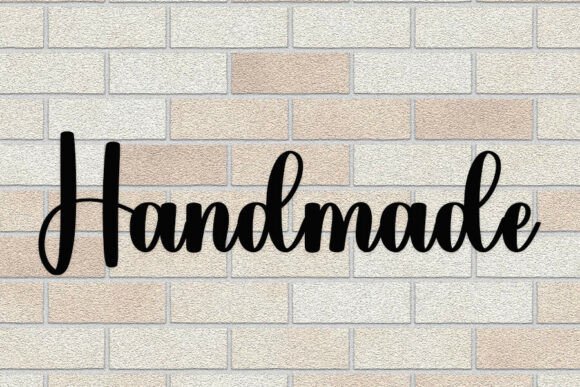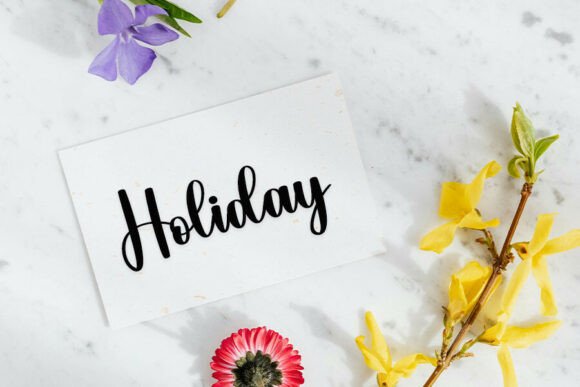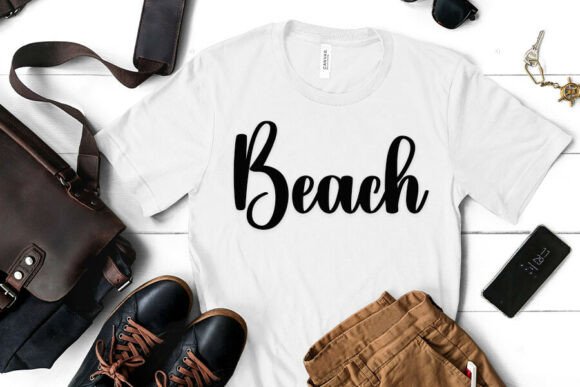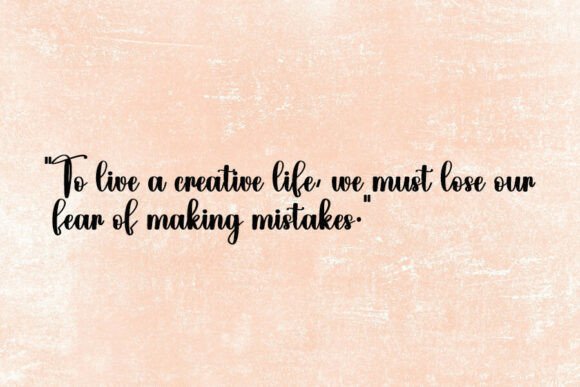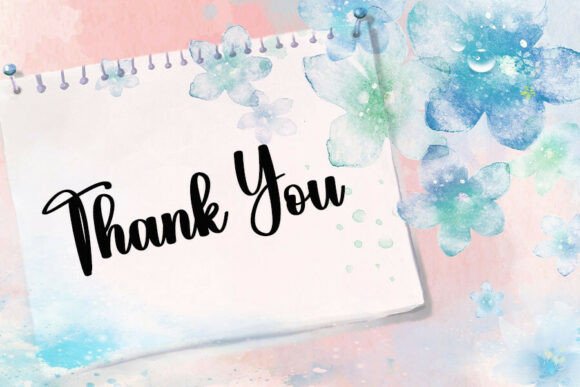
That’s where the Happy Christmas Font comes in – a beautiful and timeless handwritten font that’s perfect for creating eye-catching logos, branding, and quotes. With every letter having a unique and beautiful touch, this font will bring your designs to life and make them truly unforgettable. Whether you’re looking to add a touch of whimsy or sophistication to your holiday marketing materials, the Happy Christmas Font is a valuable asset for any designer.
Happy Christmas Font Key Features
- Unique Characteristics: The Happy Christmas Font features a unique, hand-drawn design with intricate details and ornaments, adding a touch of festive charm to any project.
Designer Review: Happy Christmas Font
I recently had the chance to play around with the Happy Christmas Font, and I must say it’s an interesting addition to any holiday-themed design project. ✨ Here are some of the things I liked:
- Unique style – The Happy Christmas Font is unlike most other holiday fonts. It has a quirky, hand-drawn feel that’s sure to catch attention.
- Fun and playful – The font is perfect for designers looking to add some whimsy to their designs.
- Good for digital projects – The font renders well in digital formats, making it suitable for web design, social media, and more.
- Limited use cases – The Happy Christmas Font is primarily suited for holiday-themed projects. It may not be the best choice for other types of designs.
- Not ideal for print – While the font works well digitally, it may not be the best choice for print projects due to its hand-drawn style.
- Not scalable – The font may lose its charm when scaled up or down, which could impact its overall effectiveness.
Overall, the Happy Christmas Font is a fun and playful addition to any holiday-themed design project. While it may have some limitations, it’s sure to add some personality to your designs. Just be sure to consider the use case and format before using it.
Use the Happy Christmas Font for festive designs, such as Christmas cards, gift tags, and holiday invitations.
Combine the Happy Christmas Font with other festive graphics, such as snowflakes, holly, or candy canes, to create a cohesive and seasonal design.